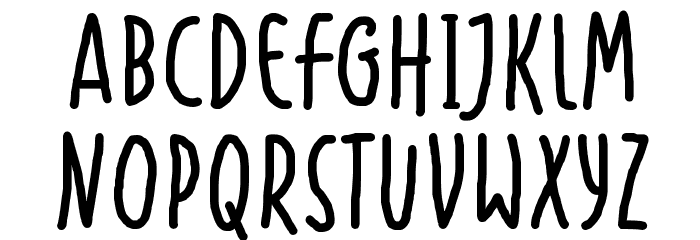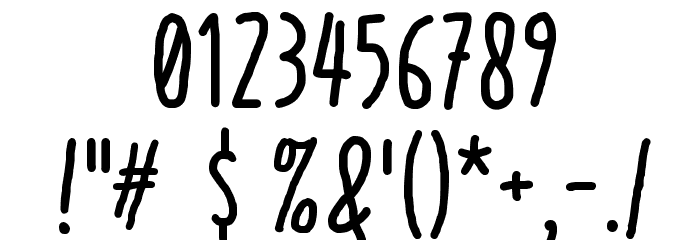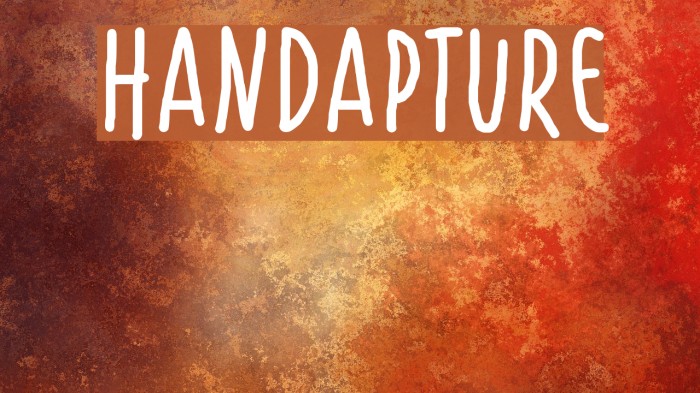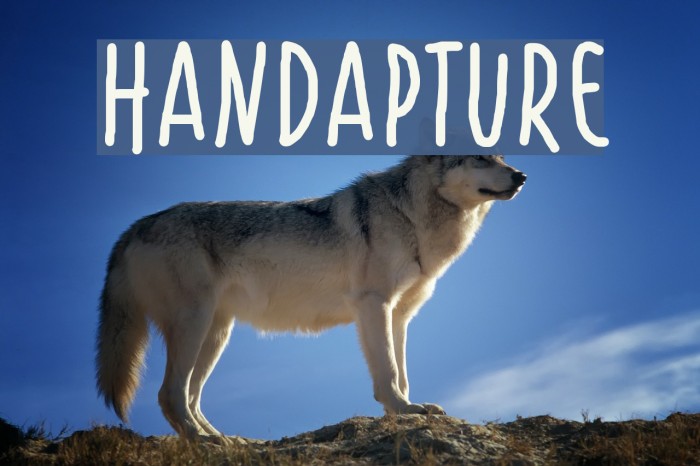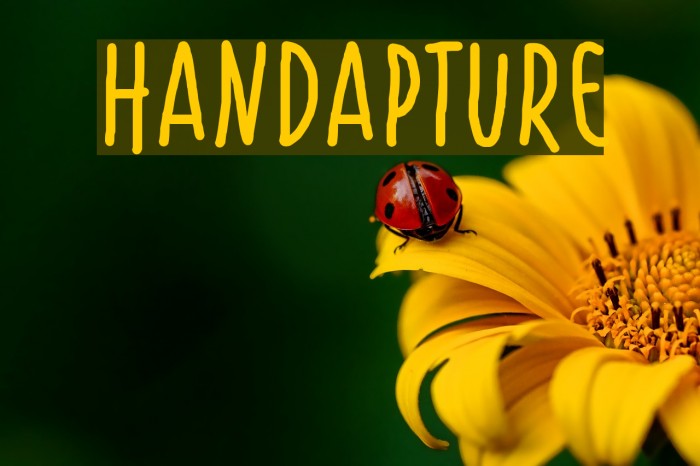
Handapture Font
This font features a playful and casual handwritten style, characterized by its irregular and organic letterforms. The strokes are slightly uneven, giving it a personal and informal feel. The uppercase and lowercase letters maintain a consistent style, with rounded edges and a slight slant, enhancing its approachable appearance. The numerals and special characters follow the same design ethos, ensuring uniformity across all glyphs. This font is ideal for projects that require a touch of personality and warmth, making it suitable for creative and informal applications.
A playful, handwritten font with irregular, organic strokes.
- Proposed Projects: Ideal for greeting cards, personal blogs, children's books, and casual branding.
- Overall Style: Casual, Playful
- Use Case: Headlines, Informal text, Creative projects